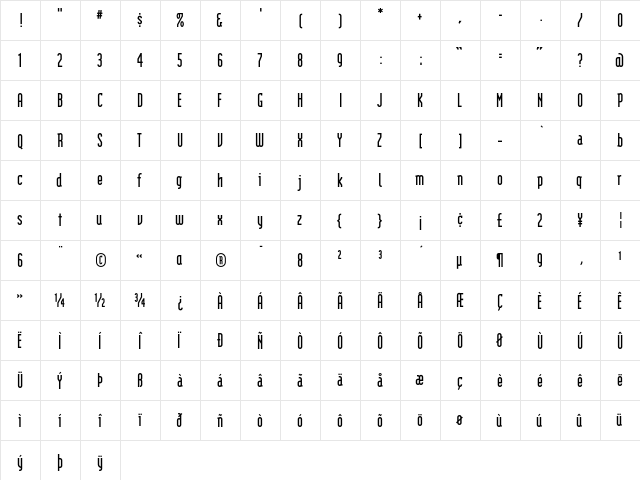
ModularBold Regular
Design Context for ModularBold Typeface
ModularBold is a composed and adaptable typeface that performs quietly and consistently across a wide range of design contexts. The heavy weight commands attention and anchors typographic hierarchies.